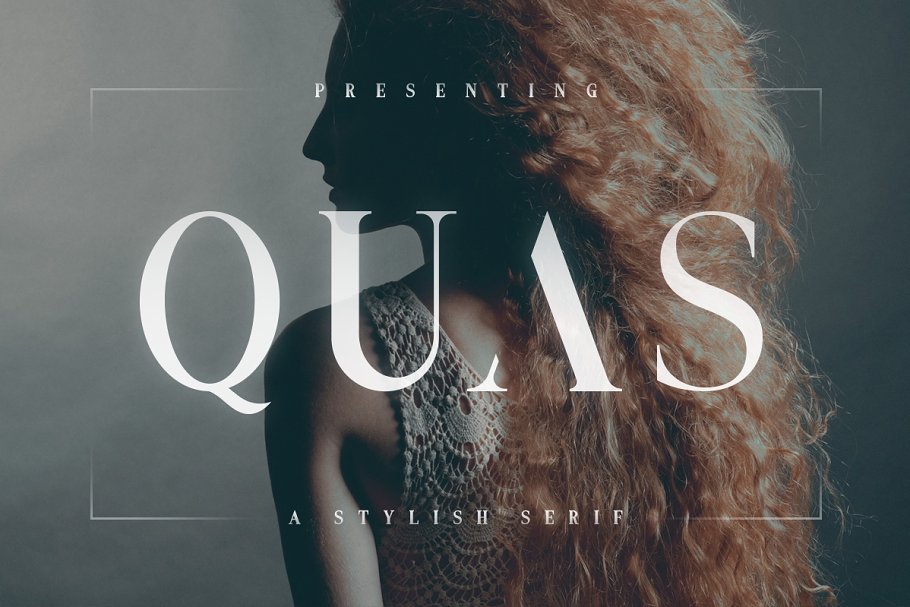
Introducing Quas Typeface, the ultimate font choice for anyone looking to add a touch of sophistication and elegance to their designs. Created by the talented Mehmet Tugcu, this serif font is guaranteed to captivate and inspire.
With its sleek and refined appearance, Quas Typeface is perfect for creating eye-catching headlines and stunning logo designs. Whether you're working on a professional project or simply want to elevate your personal brand, this font is a must-have in your collection.
One of the standout features of Quas Typeface is its versatility. It effortlessly complements both script and sans-serif fonts, allowing you to create seamless and harmonious designs. With multiple weights and styles to choose from, you have the freedom to experiment and find the perfect combination for your unique vision.
The uppercase multilingual letters in Quas Typeface add a touch of international flair, making it suitable for a wide range of projects and audiences. From crafting elegant wedding invitations to designing sleek corporate presentations, this font has you covered.
Numbers and punctuation are also included, ensuring that you have all the necessary elements to bring your designs to life. Whether you're creating a captivating infographic or a professional report, Quas Typeface has the versatility to meet your needs.
Bold and regular weights provide further options to play with, allowing you to emphasize certain elements or create a balanced composition. The bold weight commands attention and makes a bold statement, while the regular weight offers a more subtle and refined approach.
For those seeking a unique and edgy style, the minimal stencil option of Quas Typeface is perfect. It adds a contemporary twist to your designs, making them stand out from the crowd.
If you're looking to add a touch of texture and character, the distressed corroded style is a fantastic choice. It adds a sense of depth and history to your designs, giving them a vintage and nostalgic feel.